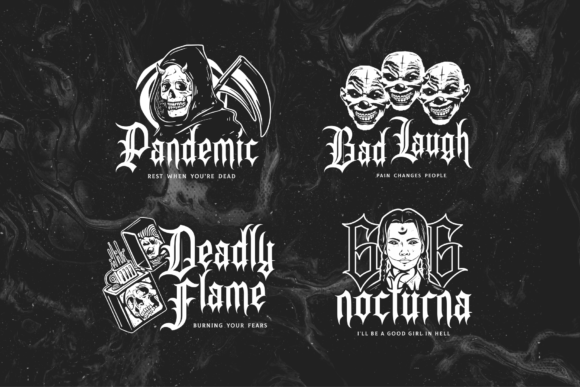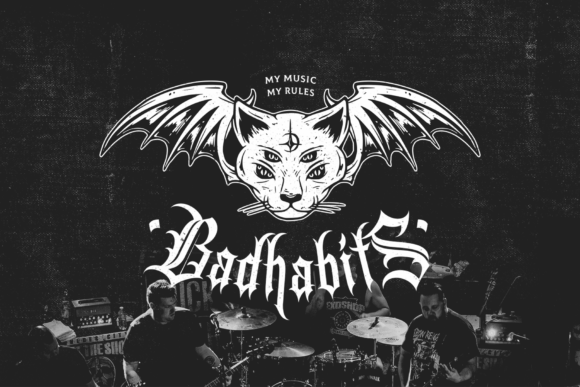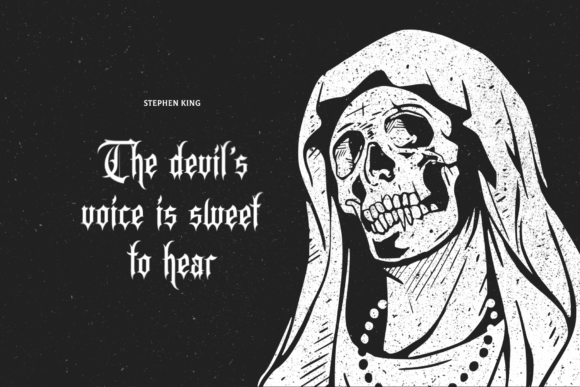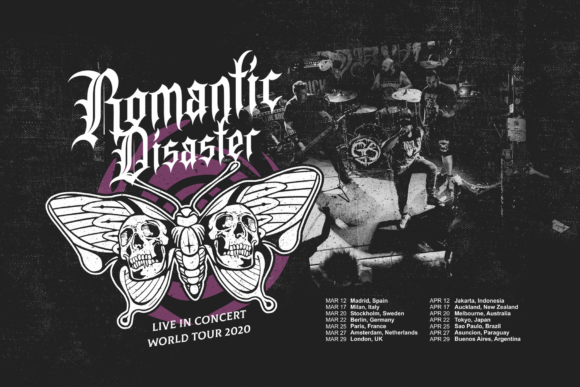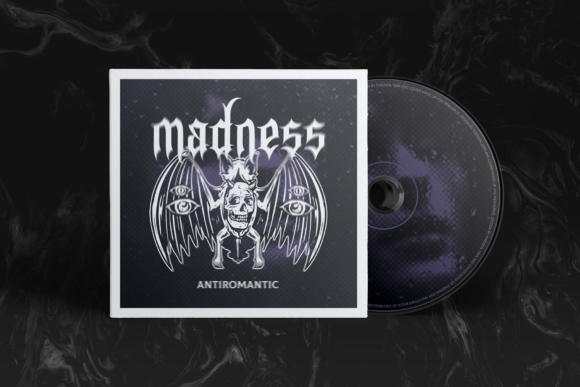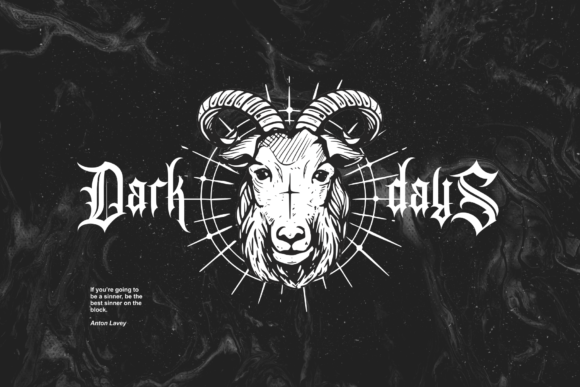
Unleash Your Creativity with Anemouth Font: A Bold Blackletter Masterpiece
In the world of typography, few fonts have made a statement as bold as Anemouth. This incredibly daring and strong lettered blackletter font has taken the design community by storm, offering endless possibilities for creatives looking to make their mark. Whether you’re a seasoned designer or a crafty enthusiast, Anemouth is sure to inspire your next project.
The Power of Blackletter Typography
Blackletter fonts have a rich history, dating back to the Middle Ages. Characterized by their dramatic flourishes and intricate details, these fonts were originally used for formal documents and literary works. Today, blackletter typography continues to captivate audiences with its unique blend of elegance and edginess. Anemouth takes this classic style to new heights, boasting a bold and daring aesthetic that’s perfect for making a statement.
What Makes Anemouth Special?
So, what sets Anemouth apart from other blackletter fonts? Here are just a few reasons why this font is a game-changer:
- Unparalleled Boldness: Anemouth is not for the faint of heart. Its bold, chunky letters are designed to grab attention and demand respect.
- Intricate Details: From the delicate flourishes to the ornate decorations, every element of Anemouth has been carefully crafted to create a truly unique visual experience.
- Endless Versatility: Whether you’re designing a logo, a poster, or a social media graphic, Anemouth can adapt to any style or theme.
Exploring the Endless Possibilities of Anemouth
So, how can you use Anemouth to elevate your designs? Here are a few ideas to get you started:
- Logo Design: Create a bold, eye-catching logo that makes a lasting impression with Anemouth’s powerful letters.
- Poster Design: Use Anemouth to create striking posters that demand attention, whether you’re promoting a concert, a sale, or a social cause.
- Social Media Graphics: Add a touch of drama and flair to your social media graphics with Anemouth’s ornate details and bold typography.
- Packaging Design: Make your product stand out on store shelves with Anemouth’s bold, attention-grabbing letters.
Tips for Working with Anemouth
While Anemouth is an incredibly versatile font, it does require some finesse to get the most out of it. Here are a few tips to keep in mind:
- Use it sparingly: Anemouth is a bold font, and using it too much can be overwhelming. Balance it with simpler fonts to create visual interest.
- Experiment with colors: Anemouth looks stunning in bold, bright colors. Don’t be afraid to try out different hues and combinations.
- Play with textures: Add depth and interest to your designs by combining Anemouth with different textures and patterns.
| Font Name | Anemouth Font |